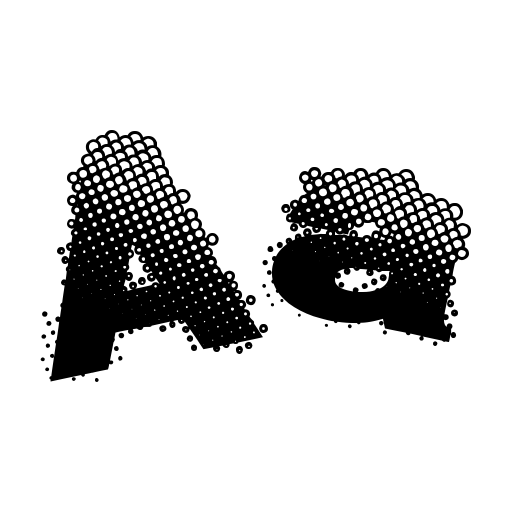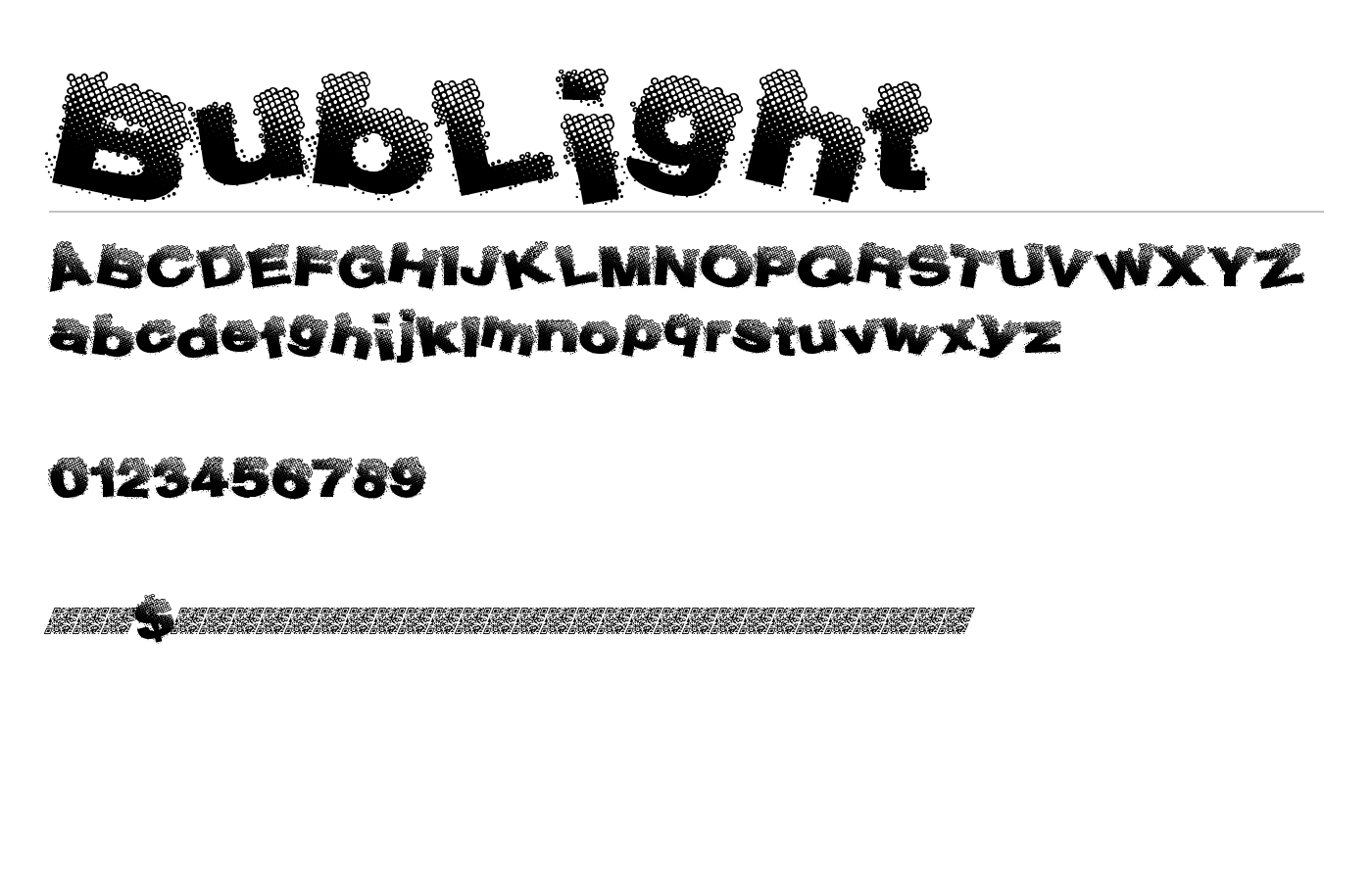
BubLight is a bold and playful sans serif font with a textured, halftone-dot pattern that gives it a dynamic, energetic feel. Its irregular, slightly rounded letterforms and varied stroke density create a lively and informal atmosphere, making it ideal for eye-catching headlines, posters, and creative branding where a fun, youthful vibe is desired. This font works best in display sizes to showcase its unique, bubbly character and vibrant personality.
BubLight Font